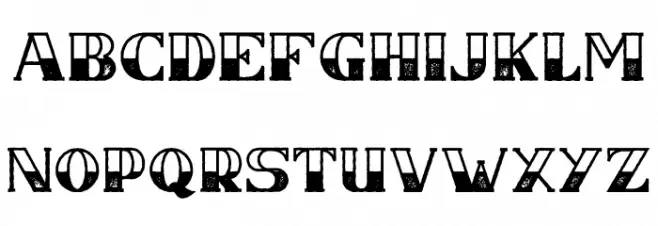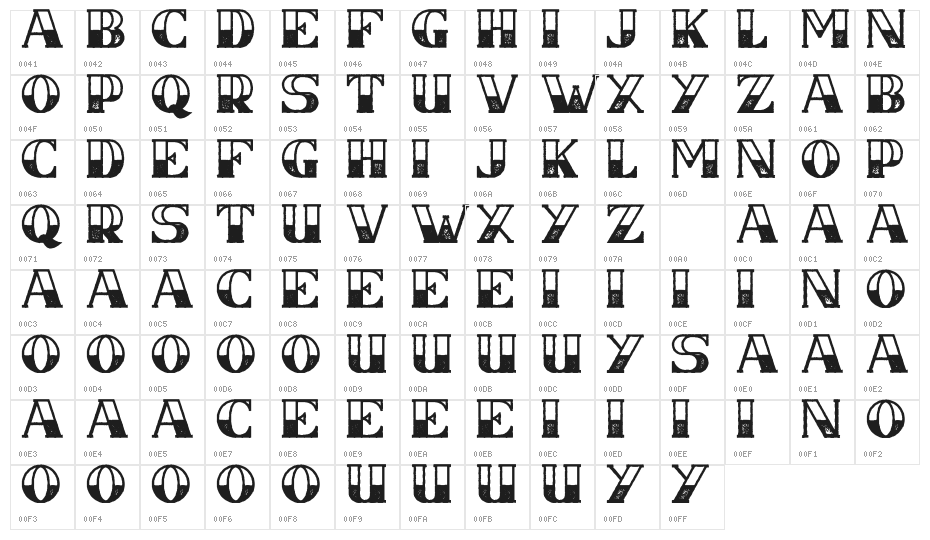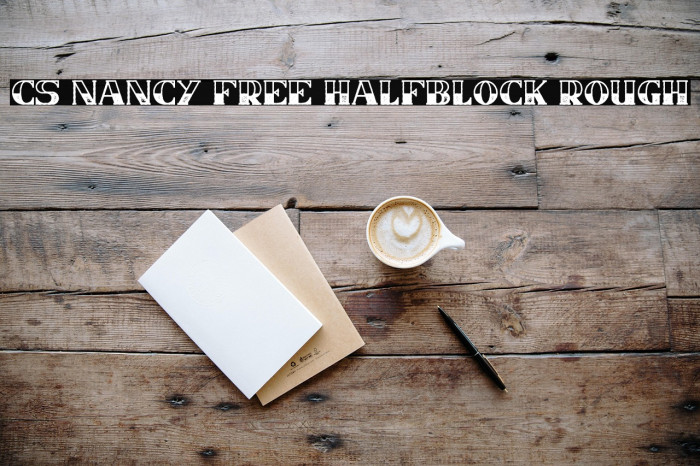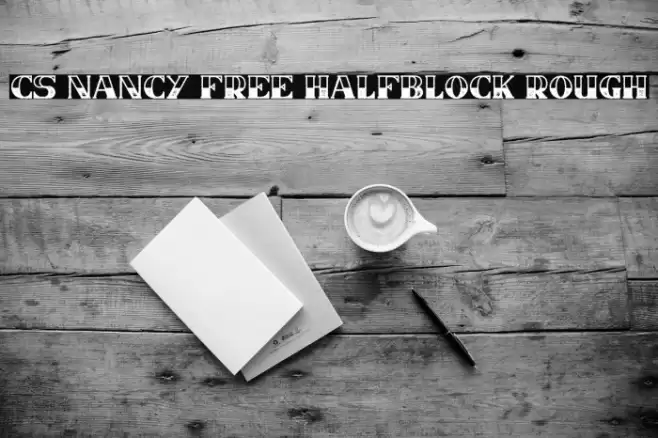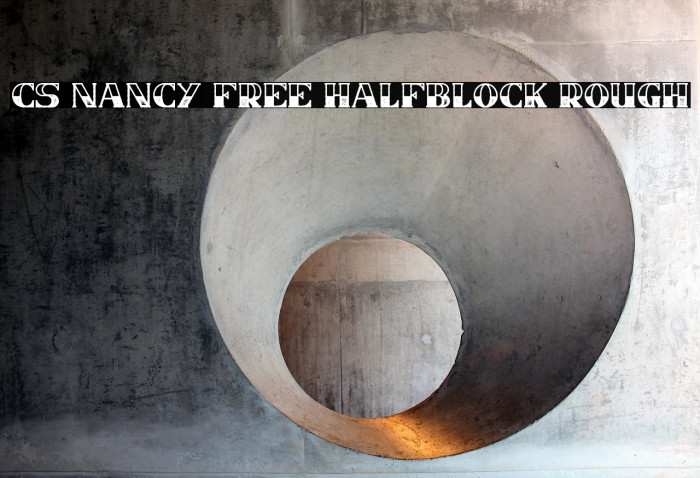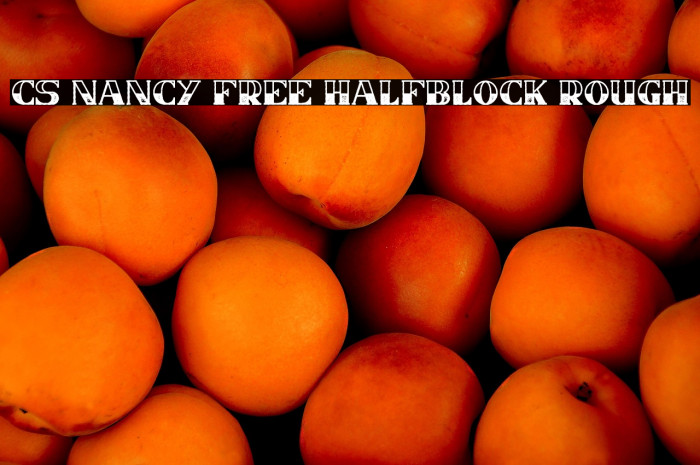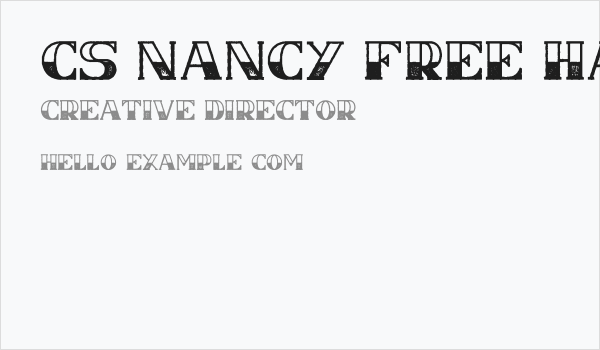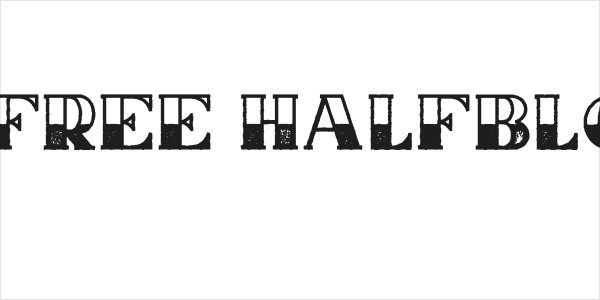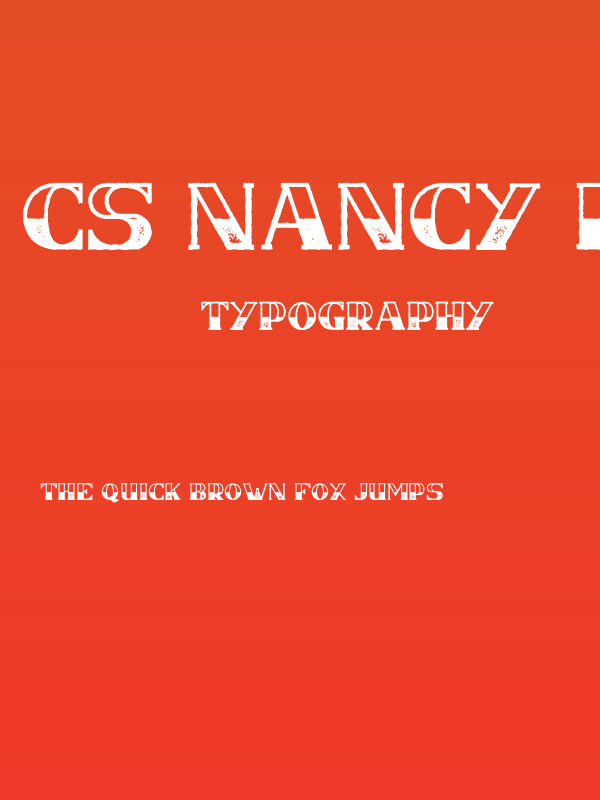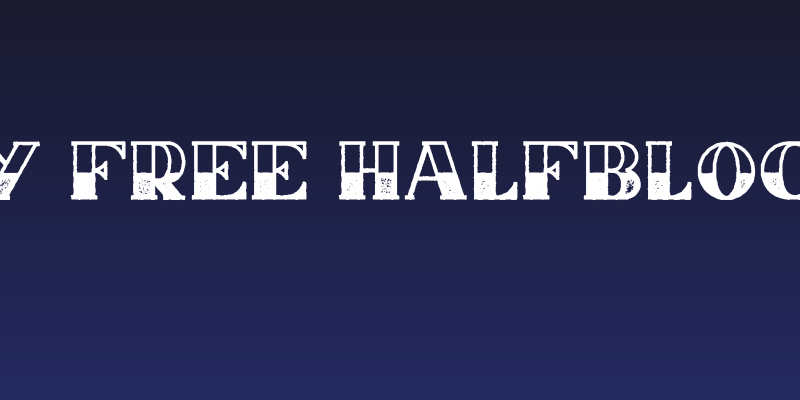
CS Nancy Free Halfblock Rough Font
CS Nancy Free Halfblock Rough Description
This font features a bold, distressed style with a rough, textured appearance. The characters are uppercase, with a blocky and robust design that gives a sense of strength and durability. The distressed effect adds a vintage or grunge aesthetic, making it suitable for designs that require a rugged or industrial feel. The letters are evenly spaced, ensuring readability despite the heavy texture. This font is ideal for creating impactful headlines or logos that need to stand out with a bold statement.
| Proposed Projects | Ideal for posters, logos, branding, and any design needing a vintage or rugged aesthetic. |